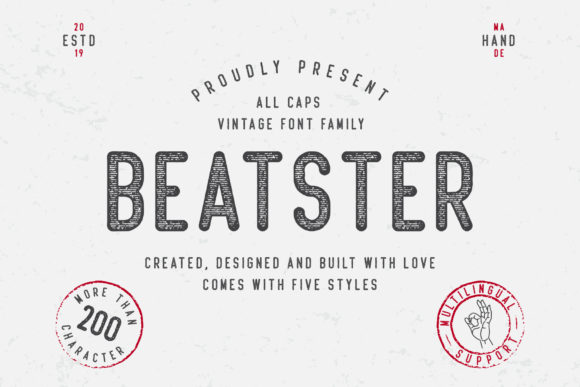
Introducing Beatster Font: The Ultimate Display Typeface for Unique Designs
In the world of typography, a good font can make all the difference in creating a design that stands out from the crowd. If you’re looking for a typeface that can add a touch of personality and uniqueness to your projects, look no further than Beatster Font. This handmade display typeface boasts a textured, vintage feel that’s sure to elevate your designs to the next level.
The Story Behind Beatster Font
Beatster Font is a carefully crafted typeface that’s designed to evoke a sense of nostalgia and character. Its textured, vintage feel is reminiscent of classic typography from the past, but with a modern twist that makes it perfect for contemporary designs. The font’s creator has poured their heart and soul into crafting a truly unique and versatile typeface that’s sure to become a staple in any designer’s toolkit.
Key Features of Beatster Font
- Textured, vintage feel: Beatster Font’s unique texture gives it a worn, aged look that’s perfect for creating designs that stand out from the crowd.
- Handmade with love: This typeface has been carefully crafted by hand, giving it a personal touch that’s hard to find in digital fonts.
- Display typeface: Beatster Font is designed specifically for display use, making it perfect for headlines, titles, and other prominent text elements.
- Editable badge template included: As a bonus, Beatster Font comes with an editable badge template that you can use to create custom badges and labels.
Uses for Beatster Font
Beatster Font is an incredibly versatile typeface that can be used in a wide range of design projects. Here are just a few ideas to get you started:
- Headlines and titles: Use Beatster Font to create eye-catching headlines and titles that grab attention and draw the reader in.
- Logos and branding: The unique texture and character of Beatster Font make it perfect for creating logos and branding materials that stand out from the crowd.
- Posters and flyers: Add a touch of personality to your posters and flyers with Beatster Font’s textured, vintage feel.
- Social media graphics: Use Beatster Font to create custom social media graphics that showcase your brand’s personality and style.
Tips for Using Beatster Font
To get the most out of Beatster Font, here are a few tips to keep in mind:
- Use it sparingly: Beatster Font is a display typeface, so it’s best used sparingly to add emphasis and personality to your designs.
- Experiment with colors: The textured, vintage feel of Beatster Font looks great in a range of colors, so don’t be afraid to experiment and find the perfect hue for your design.
- Pair it with other fonts: Beatster Font pairs well with a range of other fonts, so try combining it with a sans-serif or script font to create a unique and interesting contrast.
The Benefits of Using Beatster Font
So why should you choose Beatster Font for your next design project? Here are just a few benefits of using this unique typeface:
- Unique and memorable: Beatster Font’s textured, vintage feel makes it a truly unique and memorable typeface that’s sure to leave a lasting impression.
- Time-saving: With Beatster Font’s editable badge template, you can save time and effort by creating custom badges and labels in minutes.
- High-quality design: Beatster Font is a high-quality typeface that’s been carefully crafted to deliver exceptional results in any design project.